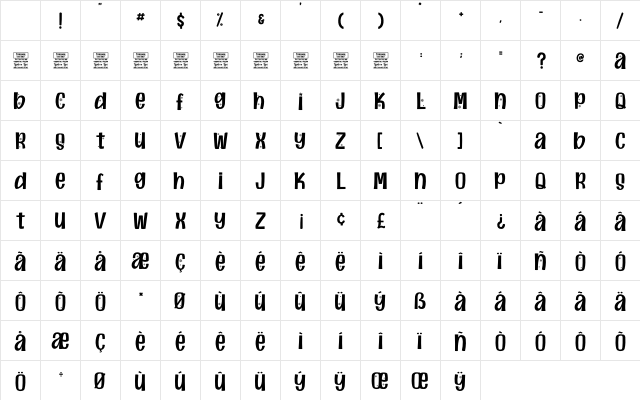
Complete Christmas Calling-Personal Use Regular glyph index. Displaying only characters natively supported by Christmas Calling-Personal Use Regular font.
Christmas Calling-Personal Use is a composed and adaptable typeface that performs quietly and consistently across a wide range of design contexts.
Who designed the Christmas Calling-Personal Use Regular font?
This font was published by Typhoon Type™ - Suthi Srisopha. Check the technical specs section for copyright and designer details.